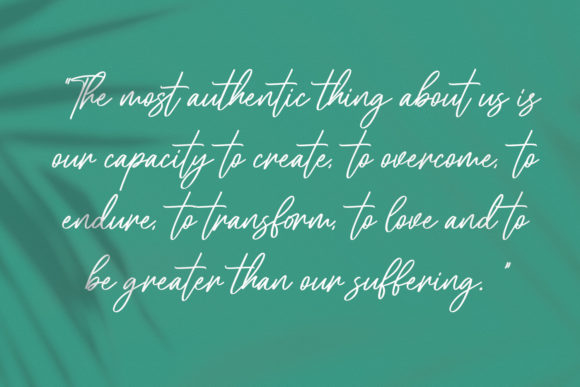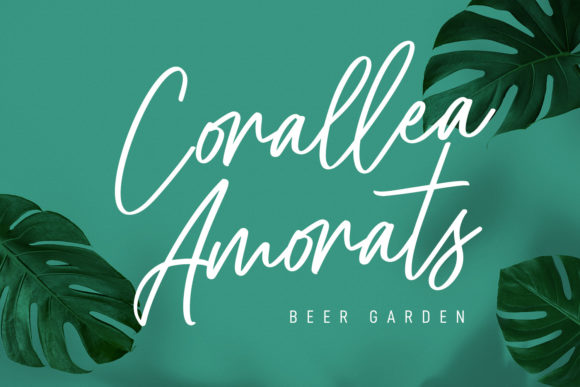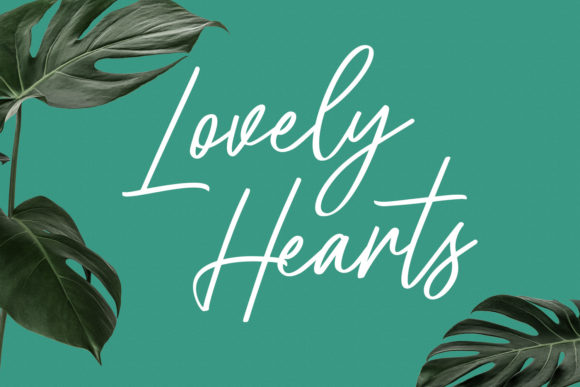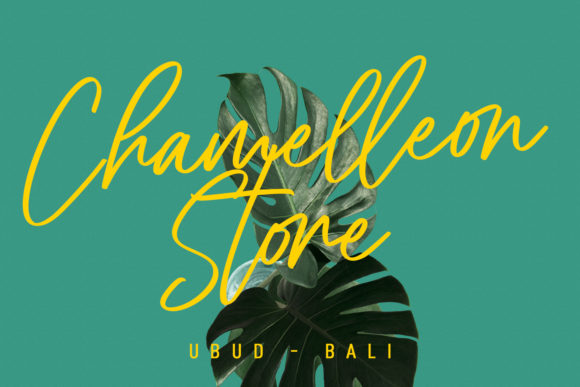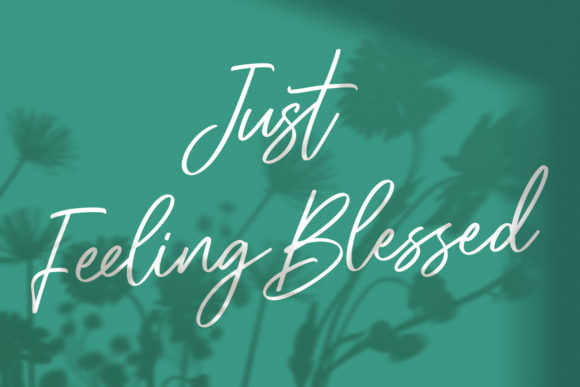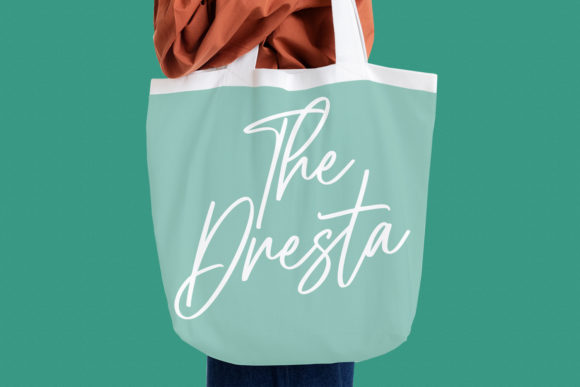
Introducing Cellarets Signature Font: The Sweet and Friendly Handwritten Font
Are you a designer or crafter looking for a font that can add a personal touch to your projects? Look no further than Cellarets Signature Font. This sweet and friendly handwritten font is perfect for a wide range of designs, from invitations and greeting cards to branding and packaging. In this article, we’ll take a closer look at Cellarets Signature Font and explore its unique features and benefits.
A Natural and Unique Style
Cellarets Signature Font boasts a natural and unique style that makes it incredibly versatile. Its handwritten charm is perfect for adding a personal touch to your designs, while its clean and legible lines ensure that your message is conveyed clearly. Whether you’re creating a rustic wedding invitation or a modern brand identity, Cellarets Signature Font is sure to impress.
The only limit to what you can create with Cellarets Signature Font is your imagination! This font is incredibly flexible and can be used in a wide range of design applications, including:
- Branding and packaging
- Signage and displays
- Digital graphics and social media
What Makes Cellarets Signature Font Special?
So, what sets Cellarets Signature Font apart from other fonts on the market? Here are just a few of its unique features:
- Handwritten charm: Cellarets Signature Font has a warm and inviting handwritten feel that’s perfect for adding a personal touch to your designs.
- Clean and legible lines: Despite its handwritten style, Cellarets Signature Font is incredibly clear and easy to read, making it perfect for body text and headings.
- Unique character set: Cellarets Signature Font includes a wide range of characters, including uppercase and lowercase letters, numbers, and punctuation marks.
How to Use Cellarets Signature Font in Your Designs
Using Cellarets Signature Font in your designs is easy. Here are a few tips to get you started:
- Pair it with other fonts: Cellarets Signature Font pairs perfectly with a wide range of fonts, from modern sans-serifs to elegant scripts.
- Experiment with colors: Cellarets Signature Font looks great in a wide range of colors, from bold and bright to soft and pastel.
- Add embellishments: Consider adding embellishments, such as flowers or leaves, to give your designs an extra touch of personality.